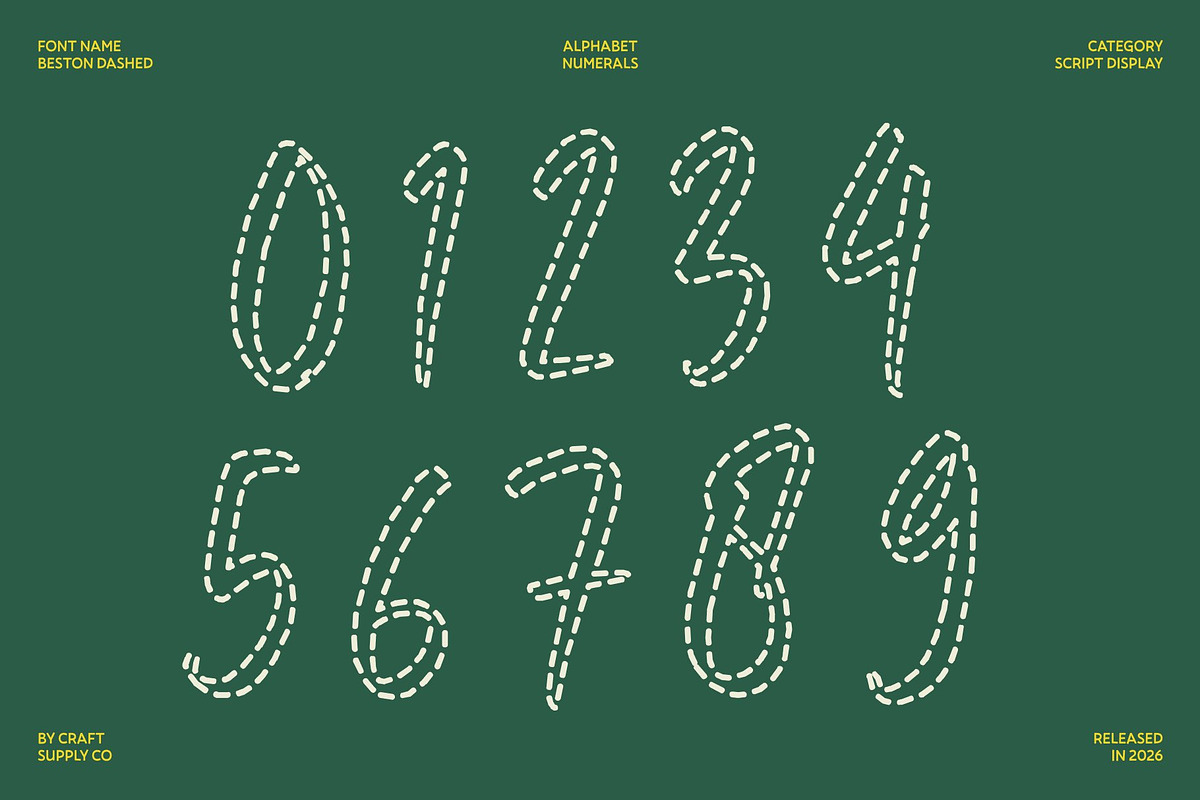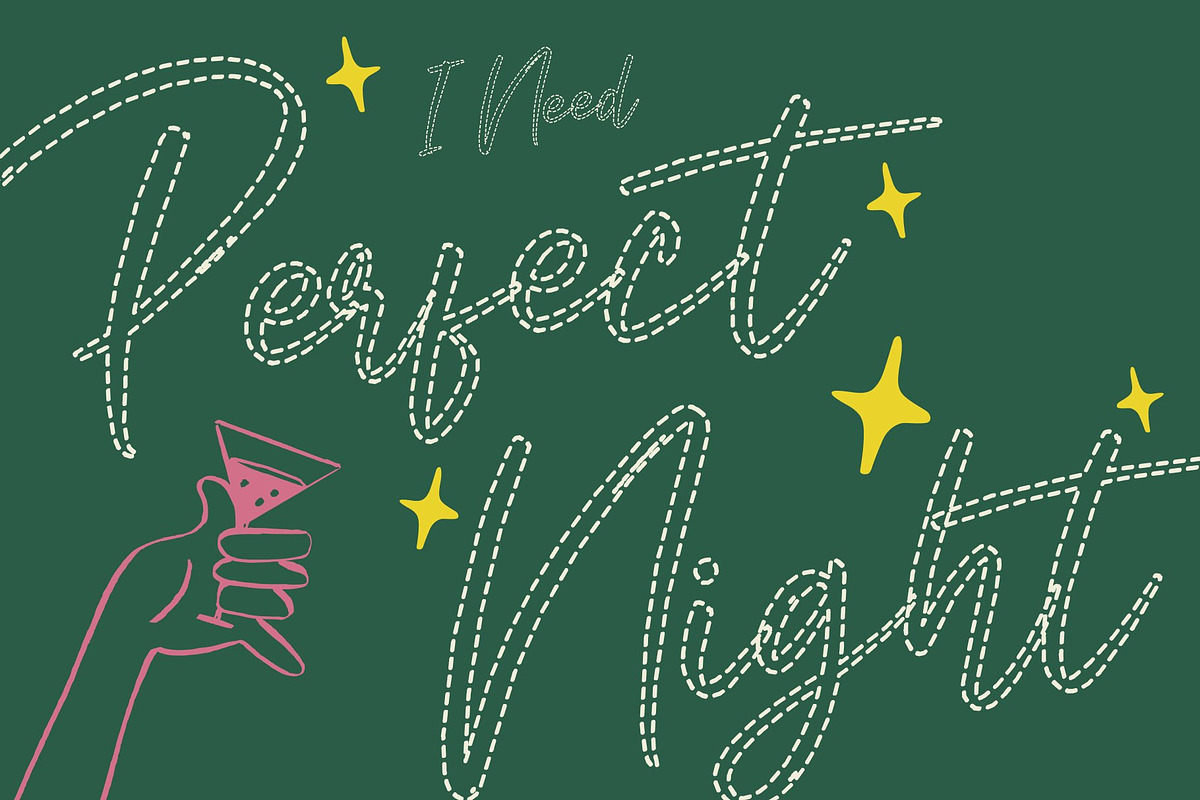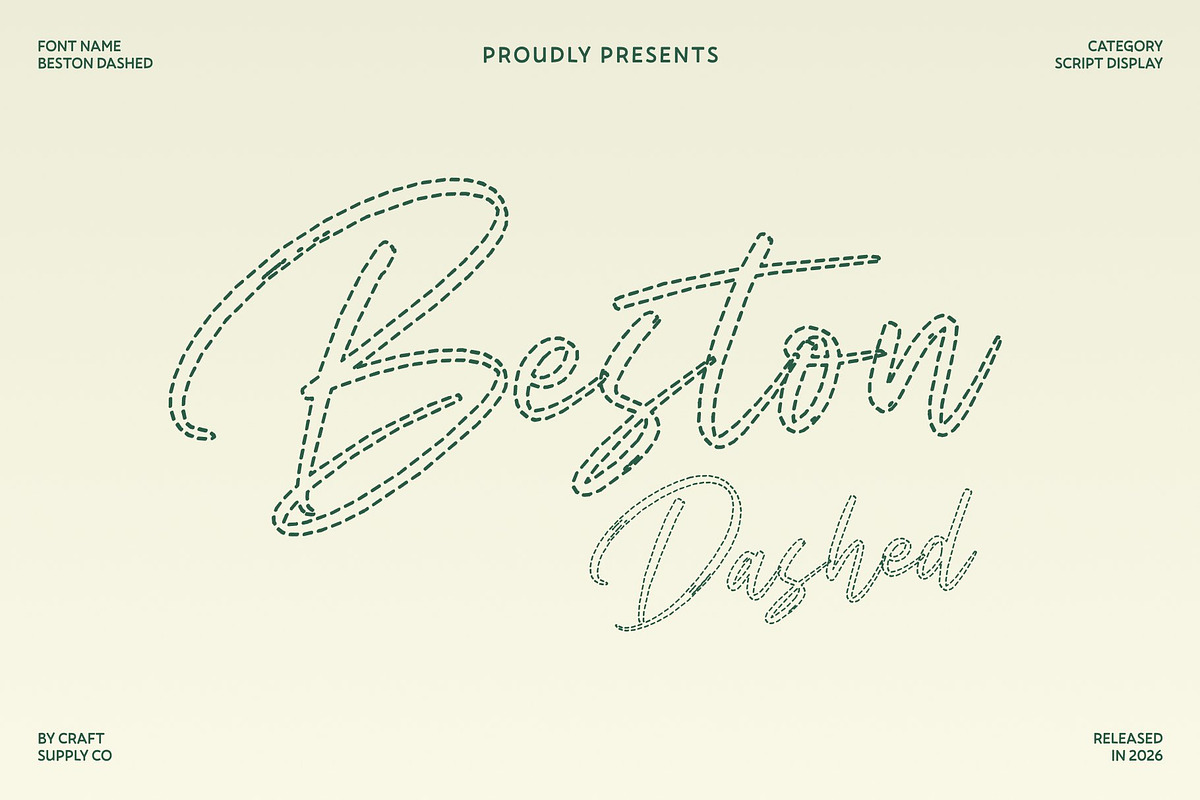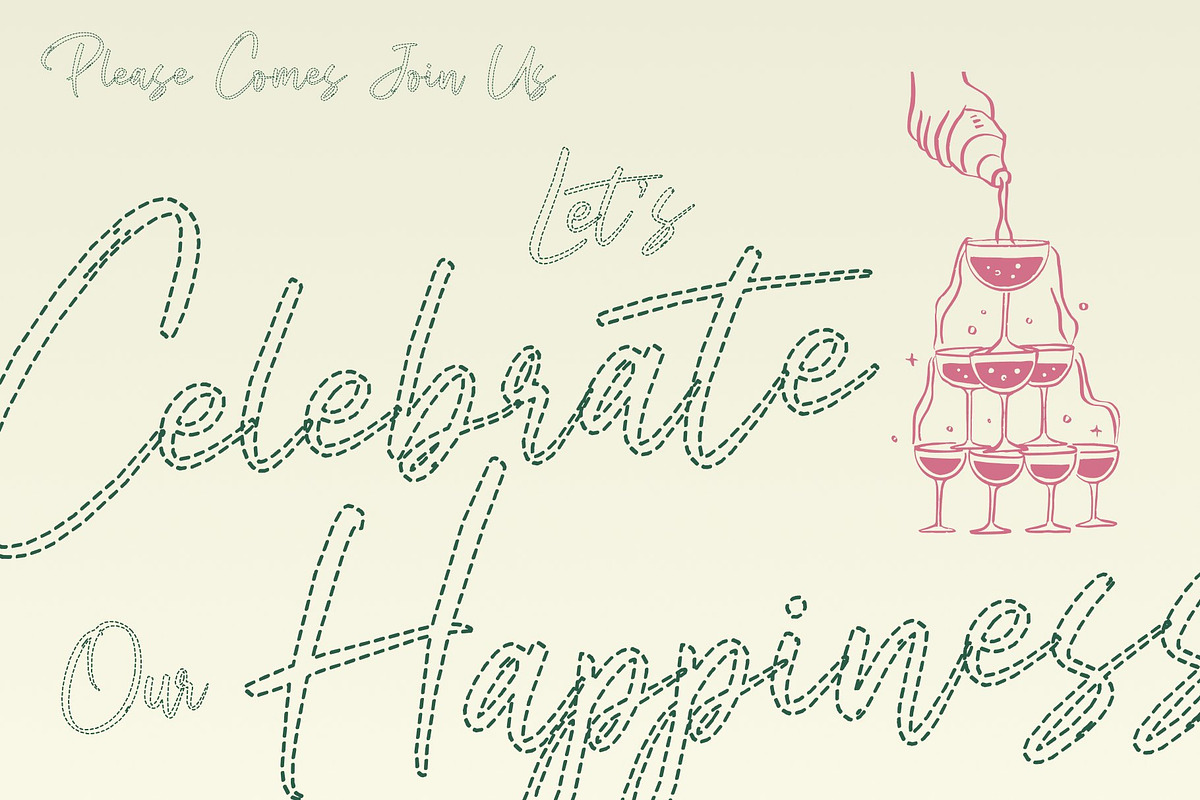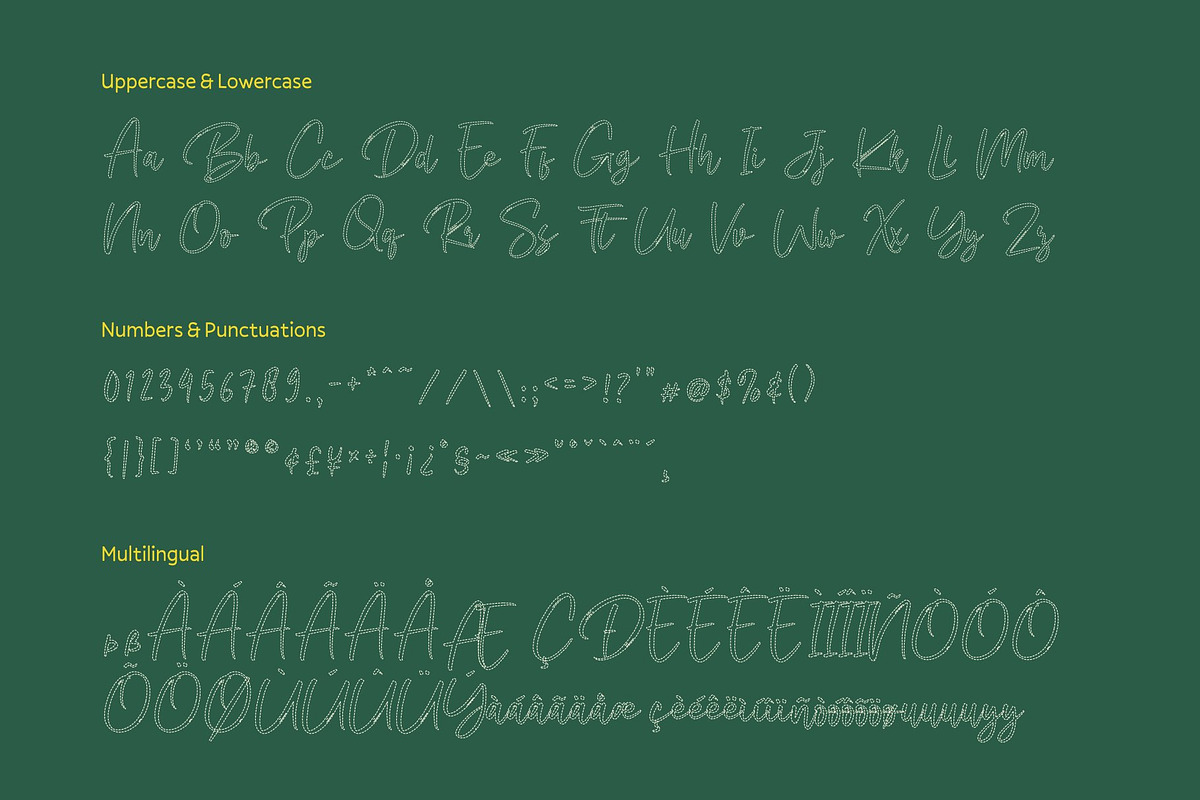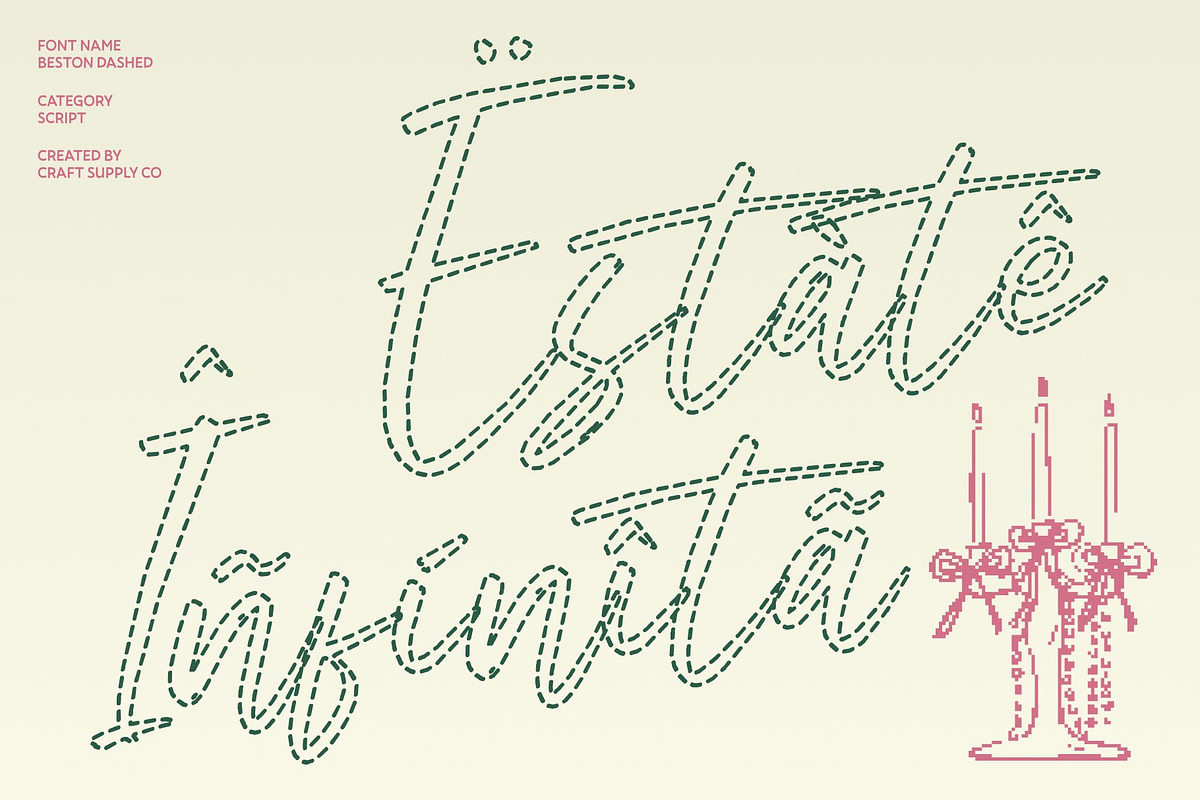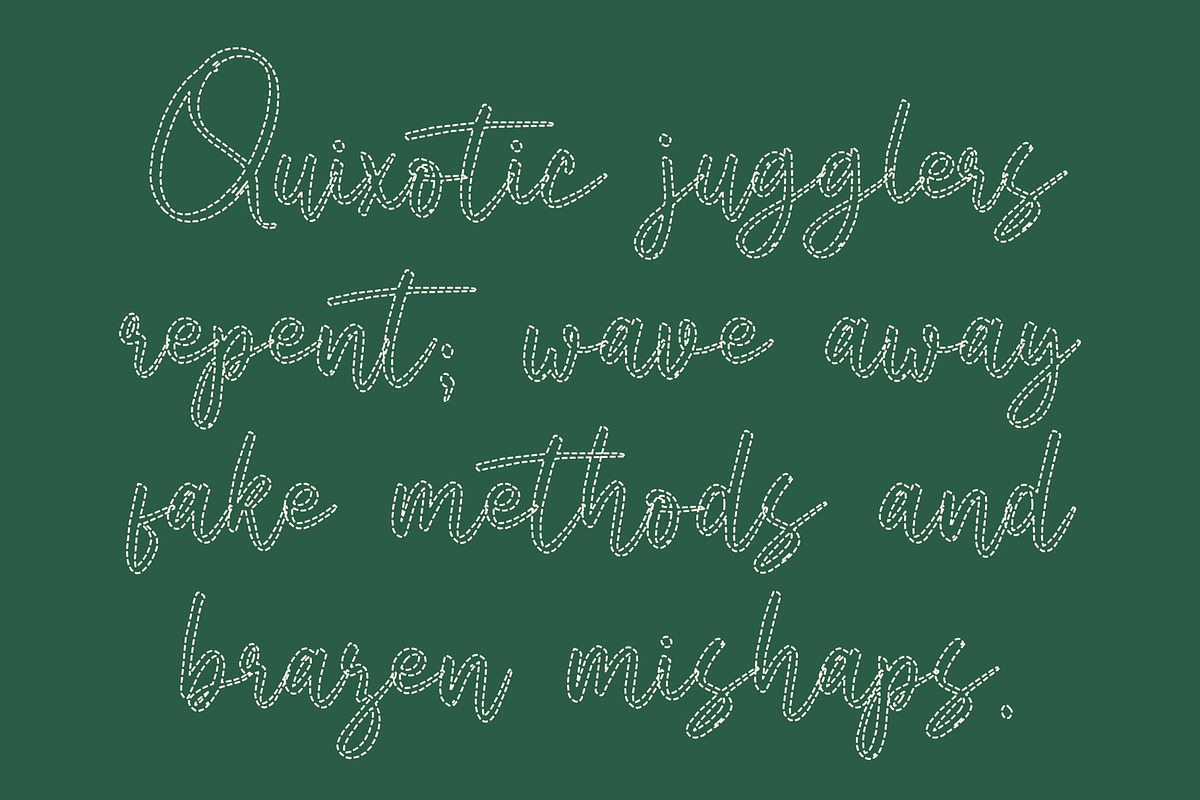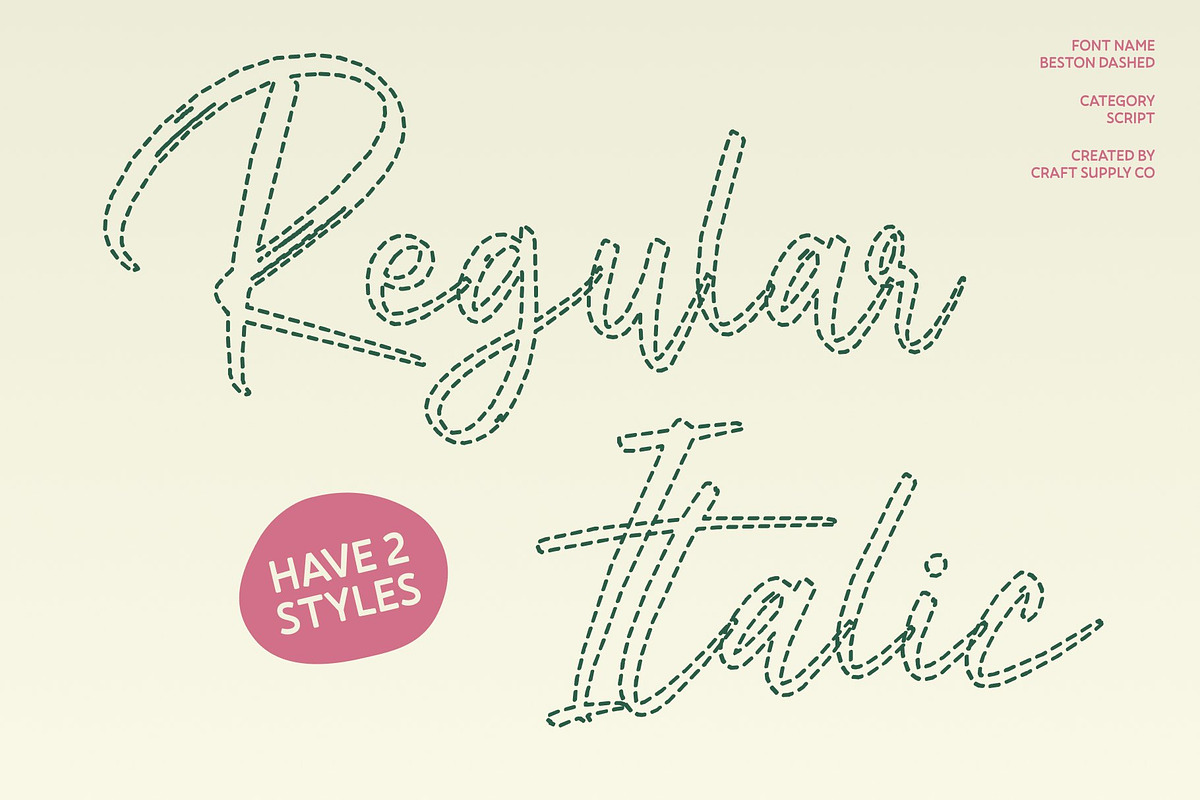
Beston Dashed
Beston Dashed – Casual Script Font
Handwritten Script with Airy Dashed Charm This is a casual handwritten script font inspired by the natural flow of real handwriting. Each letter is composed of delicate broken segments instead of solid lines, creating a light, airy texture that conveys a relaxed, handcrafted feel. The dashed strokes give the font a creative, friendly personality while maintaining stylish elegance.
Perfect for Fashion, Lifestyle, and Trendy Designs Ideal for fashion brands, e-commerce, trend blogs, wedding boutiques, and any creative project that wants to appear chic yet approachable, this font brings effortless charm. Its flowing dashed forms are perfect for logos, greeting cards, quotes, posters, stationery, blog headers, and packaging adding personality and warmth to every design.
Versatile for Modern Creative Projects This font works beautifully for modern envelope lettering, book titles, hand-drawn or watercolor design themes, craft projects, DIY layouts, or any design that needs a stylish, artistic touch. The combination of smooth script flow and dashed detailing makes every project feel trendy, expressive, and visually captivating.
Beston Dashed Regular
Beston Dashed Italic